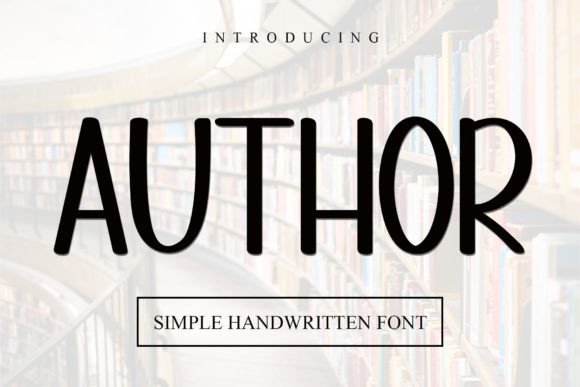
The Perfect Handwritten Font for Creative Projects: Author Font
I’ll never forget the time I was working on a wedding invitation project, and my client asked for a font that was both elegant and casual. I scoured the internet, trying out font after font, but nothing seemed quite right. That was until I stumbled upon Author Font. This beautiful, handwritten font has been a game-changer for my design projects, and I’m excited to share it with you.
A Personal Review of Author Font
I’ve had the pleasure of working with Author Font on several projects, and here’s what I think:
- ✨ Neat and casual vibe: Author Font has a lovely, laid-back feel that’s perfect for creating flyers, wedding invitations, and social media posts.
- ✅ Highly versatile: This font can be used for a wide range of projects, from logos and banners to birthday cards and thumbnails.
- ✅ Easy to read: The font is clear and legible, making it perfect for body text or headings.
Of course, no font is perfect, and Author Font has a few small quirks:
- 🤔 Limited multilingual support: While Author Font supports some languages, it may not be the best choice for projects that require a wide range of linguistic support.
- ⚠️ Some glyphs may not be as refined: While the font overall is well-designed, some glyphs (such as the @ symbol) may not be as polished as others.
The Story Behind Author Font
Author Font was designed by a talented type designer who wanted to create a font that was both elegant and approachable. The designer drew inspiration from classic handwritten fonts, but with a modern twist. The result is a font that’s perfect for creative projects that need a personal touch.
| What type of projects is Author Font best suited for? | Author Font is perfect for projects that need a personal, handwritten touch, such as wedding invitations, flyers, social media posts, and more. |
| Does Author Font support OpenType features? | Yes, Author Font supports OpenType features, including stylistic alternates and glyphs. |
| Is Author Font available in different font styles? | Yes, Author Font comes in several font styles, including regular, italic, and bold. |